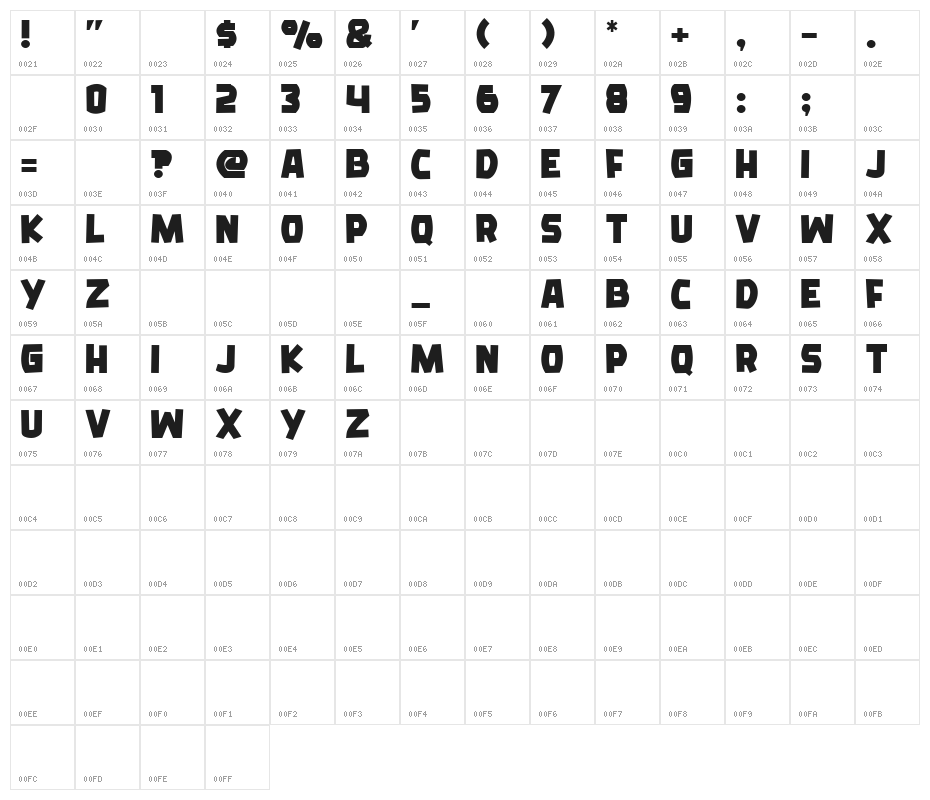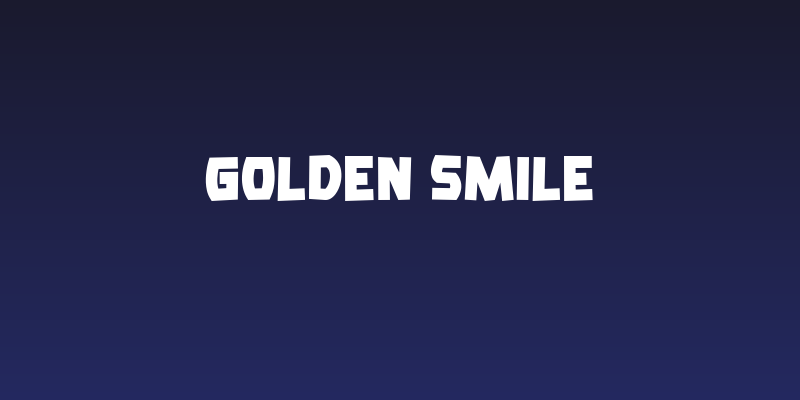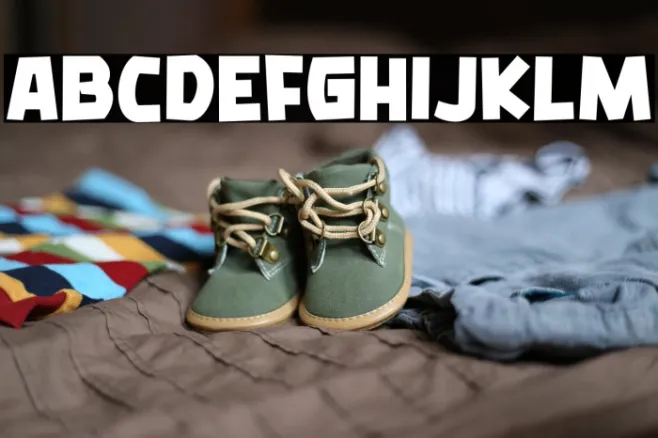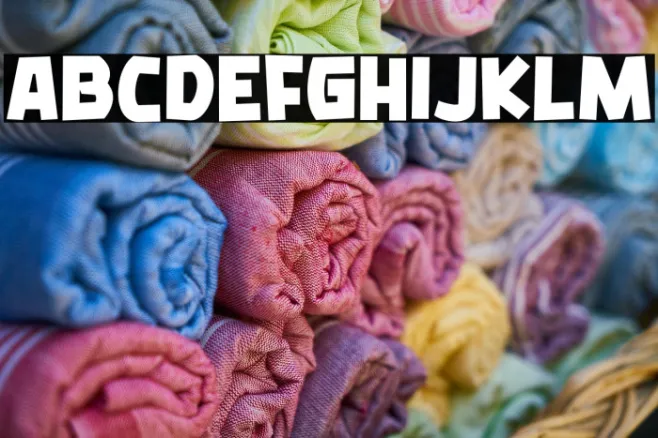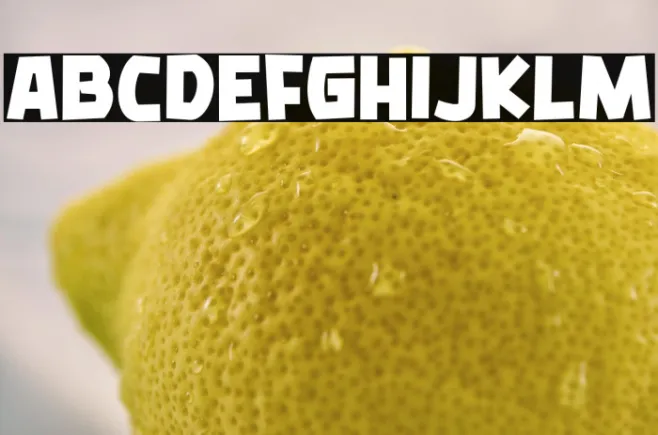
Golden Smile Font
Golden Smile Description
This font features a bold and playful design with a distinctly modern flair. The characters are slightly irregular, giving them a dynamic and energetic appearance. The uppercase letters are robust and commanding, while the lowercase letters maintain a consistent style that complements the overall aesthetic. Numbers are equally bold, ensuring they stand out in any context. Special characters are designed with the same playful touch, making them suitable for creative and informal projects. The font's unique style makes it ideal for attention-grabbing headlines and logos.
| Proposed Projects | Perfect for branding, posters, children's books, and any project requiring a fun and engaging typeface. |